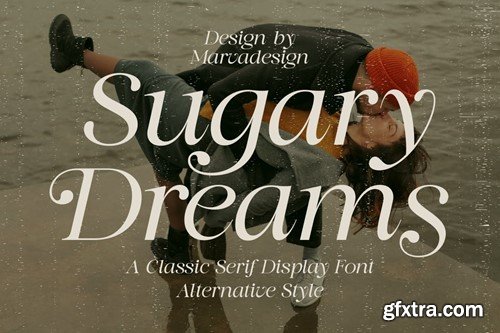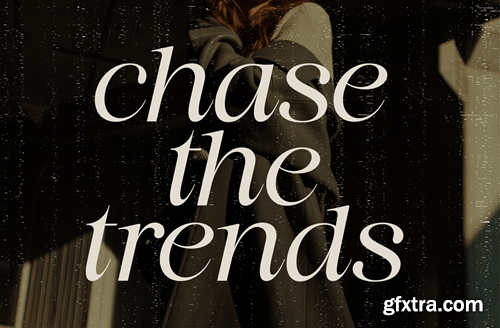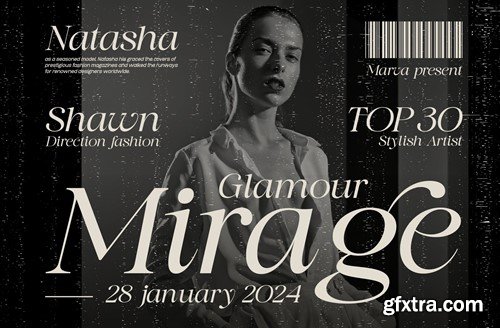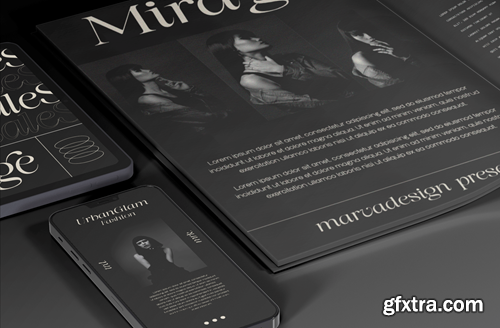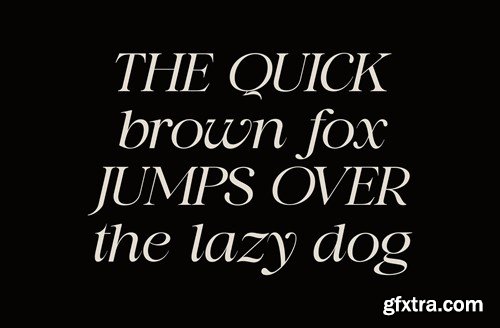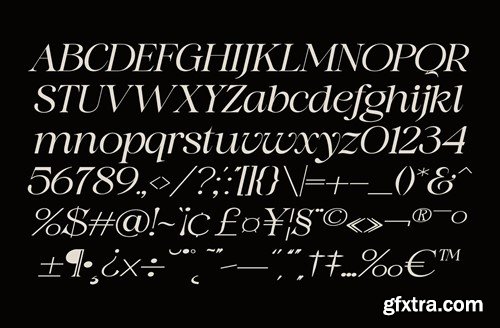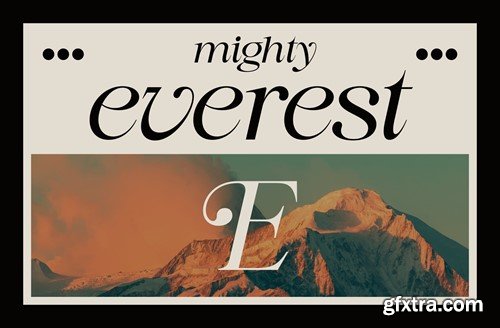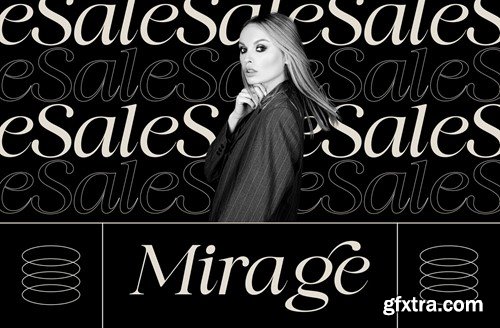
Sugary Dreams - A Serif Display Font 4D7Y2EN
Sugary Dreams - A Serif Display Font
Introducing our new product Sugary Dreams - A Serif Display Font authentic display font. The font is suitable for any branding project like logo, Template Design, Product and many more. outstanding in a wide range of contexts.
• Uppercase
• Lowercase
• Multilingual
• Ligature
• Alternate